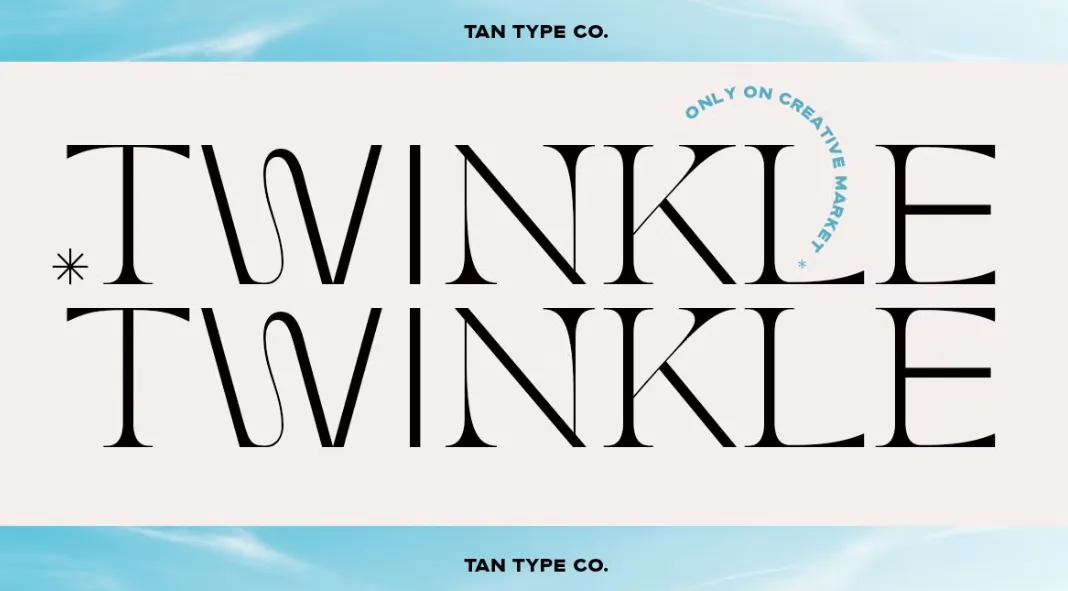
Say hello to TAN TWINKLE, a stylish hybrid typeface from foundry TanType.
Check out TAN TWINKLE, a stunning hybrid typeface by the renowned TanType studio. This unique font masterfully combines the elegance of serif with the clean lines of sans serif, resulting in a modern, delicate, yet vintage-inspired aesthetic.
TAN TWINKLE is characterized by its blend of classic and modern elements. The serif influences bring a touch of traditional sophistication, while the sans serif components infuse it with a fresh, minimalist vibe. This fusion makes TAN TWINKLE incredibly versatile, and suitable for a wide range of design projects, from editorial layouts and branding to web design and advertising.
The delicate features of TAN TWINKLE do not compromise its presence. Each character is meticulously crafted to maintain clarity and readability, even in smaller sizes. The thin lines and graceful curves create an airy, elegant feel, while the sharp edges and bold strokes ensure it remains impactful and attention-grabbing.
Perfect for Modern Designers with a Vintage Twist
TAN TWINKLE’s modern but vintage-inspired look makes it a favorite among graphic designers. Its hybrid nature allows it to seamlessly fit into various design styles, making it a go-to choice for those who want to add a touch of sophistication to their work. Whether you’re designing a sleek magazine layout, a chic logo, or an eye-catching poster, TAN TWINKLE provides versatility for your work.
This typeface is particularly effective in projects that require a balance of elegance and modernity. Here are some ideal applications for TAN TWINKLE:
- Editorial Design: Perfect for headlines, subheadings, and pull quotes in magazines and newspapers, adding a sophisticated flair.
- Branding: Ideal for luxury brands seeking a modern yet timeless look.
- Web Design: Enhances the aesthetic appeal of websites, making them look contemporary and stylish.
- Advertising: Stands out in print and digital ads, drawing attention with its unique hybrid style.
TAN TWINKLE is an exceptional choice for designers seeking to create visually stunning and versatile designs.